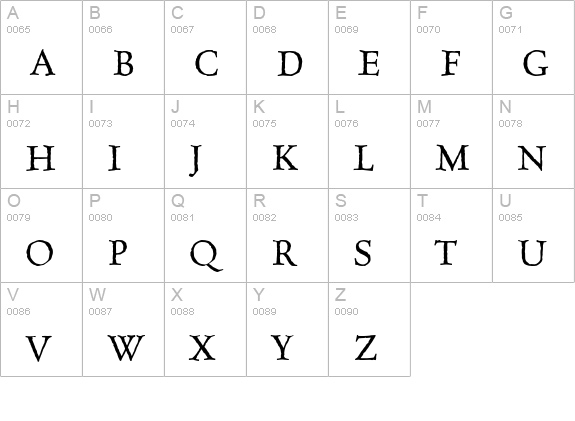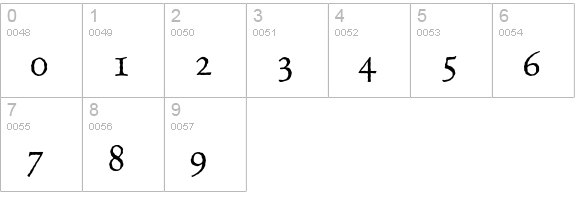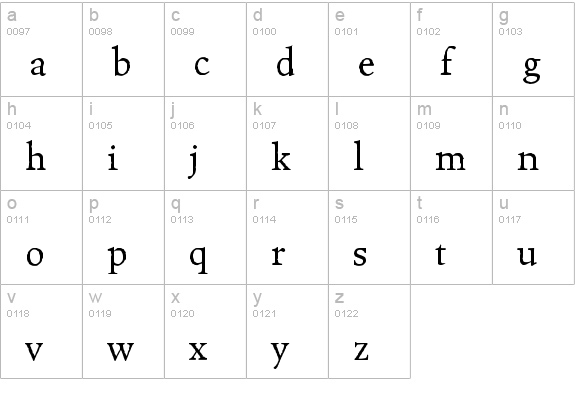
Celestia Antiqua Std is an elegant and timeless typeface that exudes sophistication and grace. With its classic serif style and delicate curves, this font is perfect for adding a touch of refinement to any project. Whether you're designing invitations, crafting a logo, or creating a stunning poster, Celestia Antiqua Std will elevate your work to new heights. What makes Celestia Antiqua Std even more appealing is that it is completely free to download. You can easily access this exquisite font at FontsMarket.com, where you can download it and start using it in your projects right away. Don't miss out on the opportunity to enhance your designs with this beautiful and versatile typeface. Download Celestia Antiqua Std today and see the difference it can make in your creative endeavors.